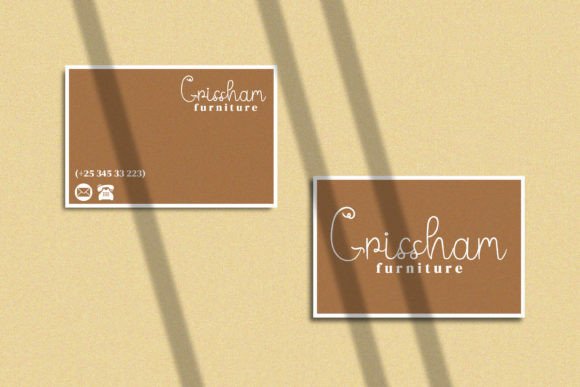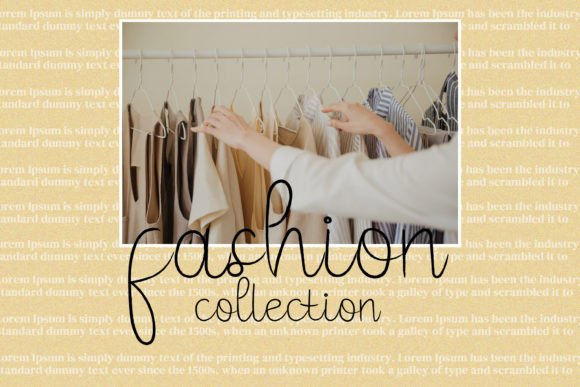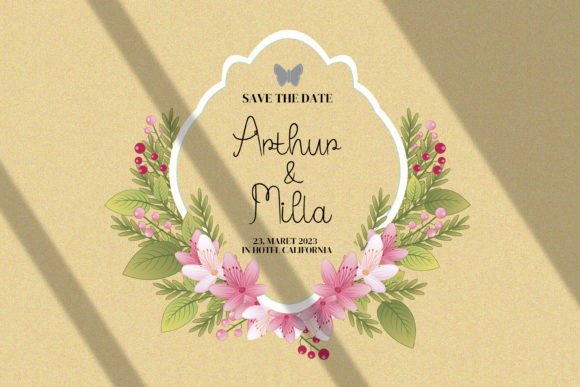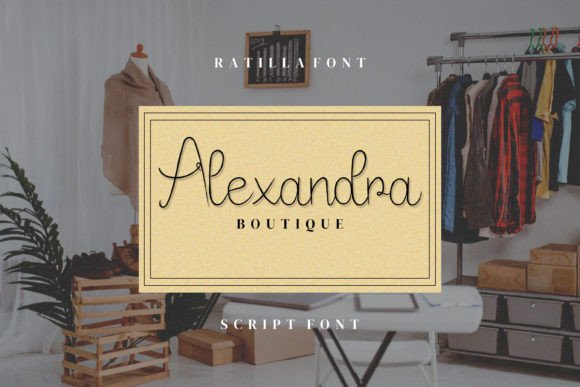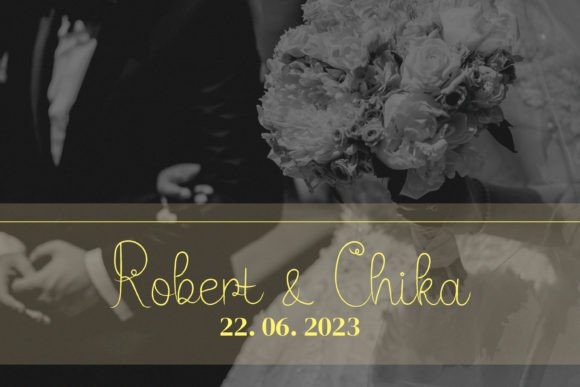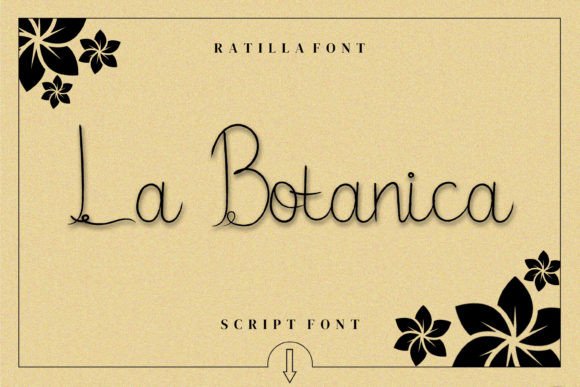
Introduction to Ratilla Font
Have you ever sat at your desk, staring at a blank sheet of paper, waiting for inspiration to strike? This is exactly where I was when I first discovered the Ratilla Font. As a designer, I’m always on the lookout for that perfect font to elevate my projects, and Ratilla Font did just that.
With its elegant and charming feel, Ratilla Font is a game-changer for any creative project. Whether you’re designing a wedding invitation, a thank you card, or a logo, this font adds a touch of sophistication and personality. And the best part? It’s available for free download, making it an invaluable design resource for designers of all levels.
What sets Ratilla Font apart from other fonts is its high-quality design, perfect for projects that require a transparent background or a creative touch. In this article, we’ll dive deeper into the world of Ratilla Font and explore its many uses, so you can see why it’s become a staple in the design community.
Key Features of Ratilla Font
- It features a transparent background, allowing for seamless integration with various design elements.
- Ratilla Font supports a wide range of languages, making it a versatile design resource for international projects.
- Ratilla Font’s distinctive design makes it perfect for creative projects, such as branding, packaging, and digital art.
Honest Review: Ratilla Font
I recently had the chance to work with the Ratilla Font and I’m excited to share my honest thoughts on this design resource. With a free download option, it’s a great addition to any designer’s toolkit.
- Unique and creative design: The Ratilla Font is truly one-of-a-kind, making it perfect for projects that require a bold and eye-catching look.
- High-quality graphics: The font is crisp and clear, even when used on a transparent background, which is a great feature for designers who need to work with layered designs.
- Easy to use: The font is well-behaved and easy to use, making it a great choice for designers who are looking for a hassle-free design experience.
- Limited font styles: While the Ratilla Font is unique, it’s limited in terms of font styles, which may not be ideal for designers who need a wide range of options.
- Not suitable for formal projects: The font’s bold and creative design may not be suitable for formal or professional projects, such as resumes or business reports.
Overall, I was impressed with the Ratilla Font and would recommend it to designers who are looking for a unique and creative design resource. While it has some limitations, it’s a great addition to any designer’s toolkit.
How to Use Ratilla Font
The Ratilla Font is a high-quality design resource that can be used in a variety of creative projects. With its unique style and transparent background, it’s perfect for adding a touch of elegance to your designs.
Getting the Most Out of Ratilla Font
For the best results, use the Ratilla Font in conjunction with other high-quality design resources. Experiment with different font sizes, colors, and arrangements to create a unique and visually appealing design.
The Ratilla Font is ideal for use in wedding invitations, business cards, and other design projects where a touch of elegance is required. Its transparent background makes it easy to use in combination with other design elements.